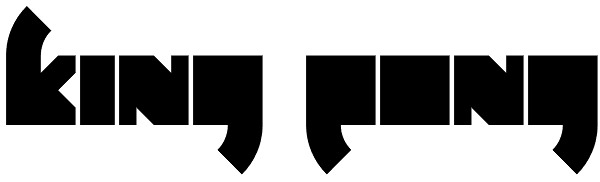
King Pong
Inspired by apes and barrels, King Pong is a display font that's heavy, blocky, yet cheerful. Letterforms are brought to life through removal from a single square. Ascenders and descenders bring contrast and interest to the letterforms through a...